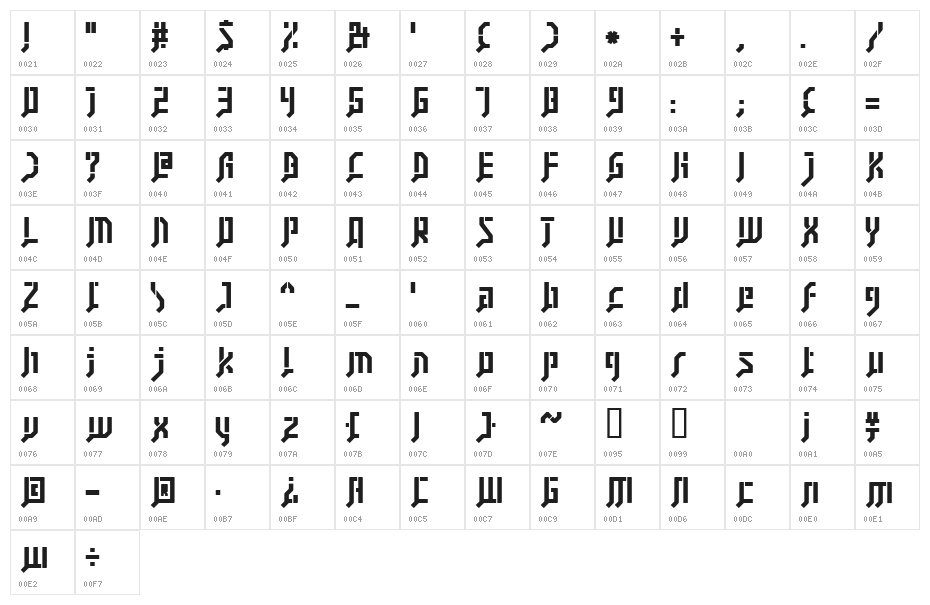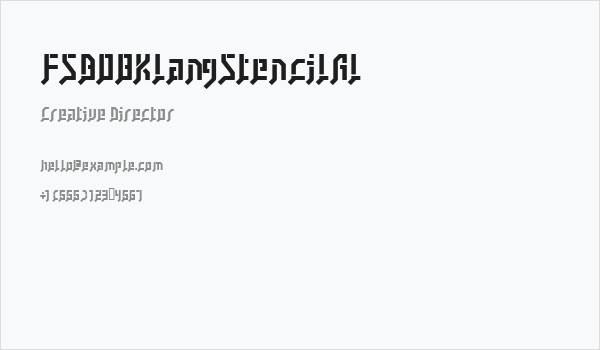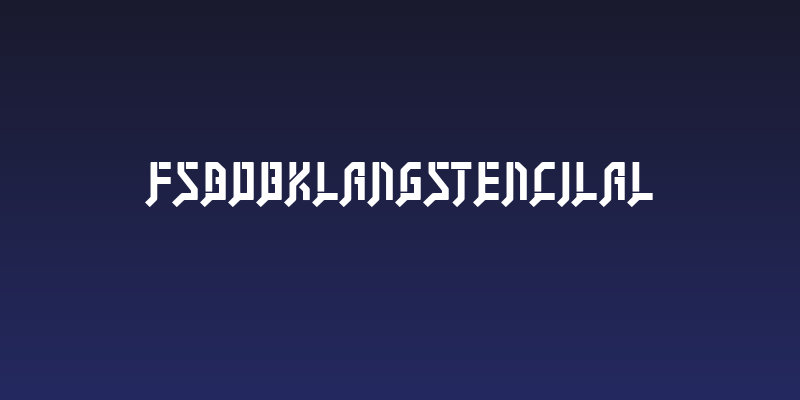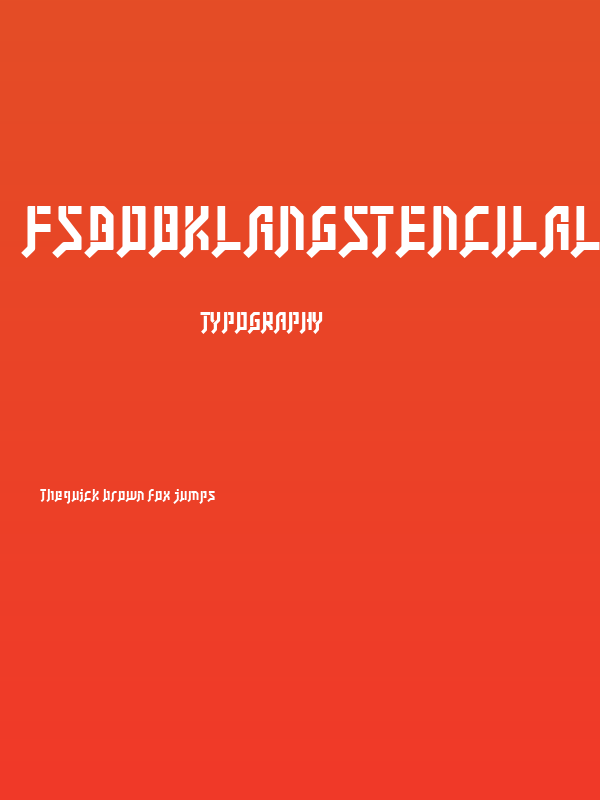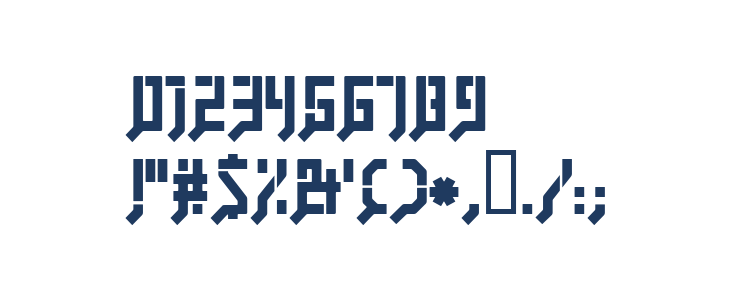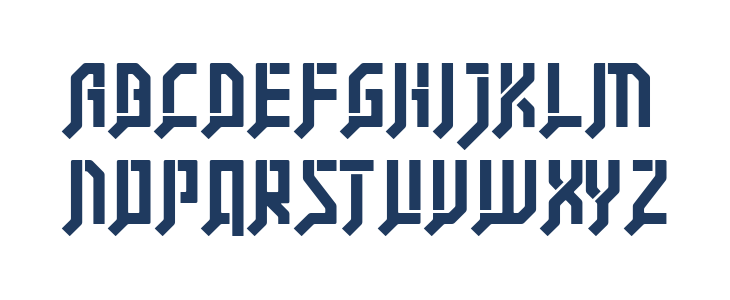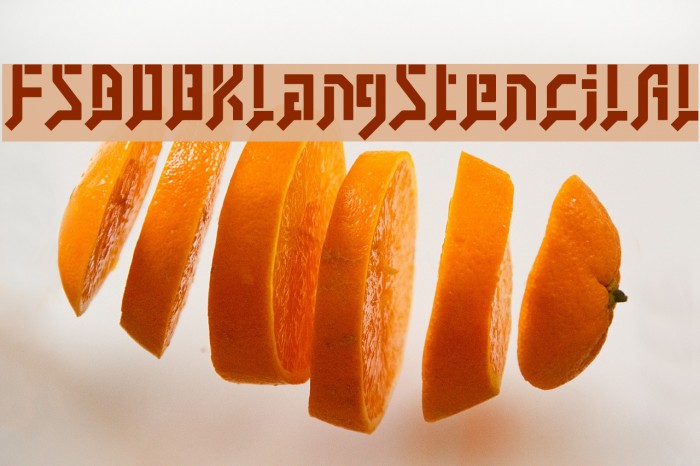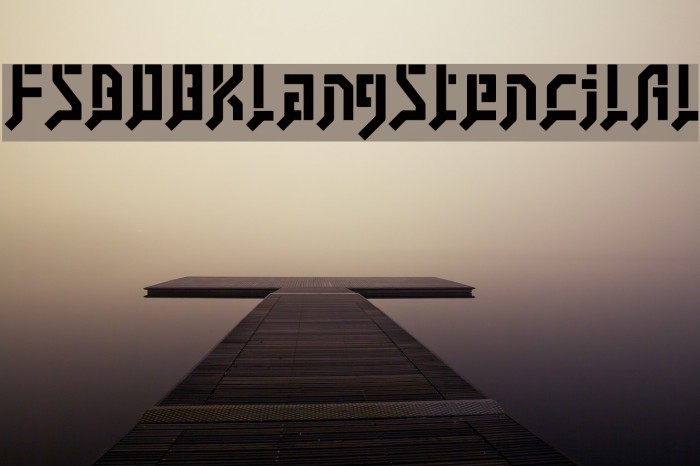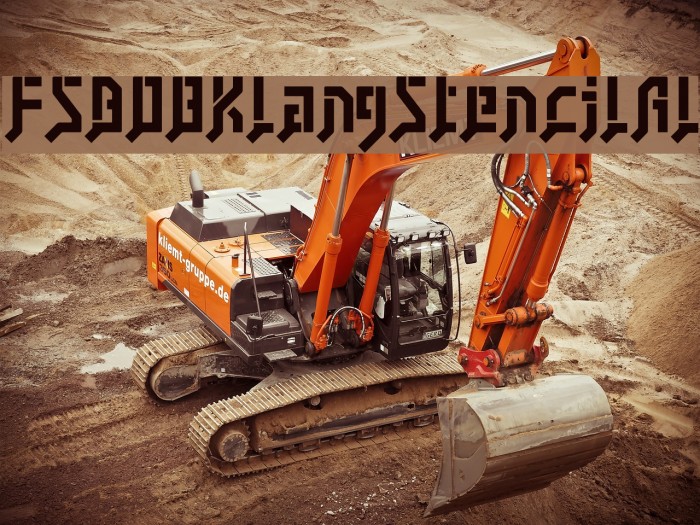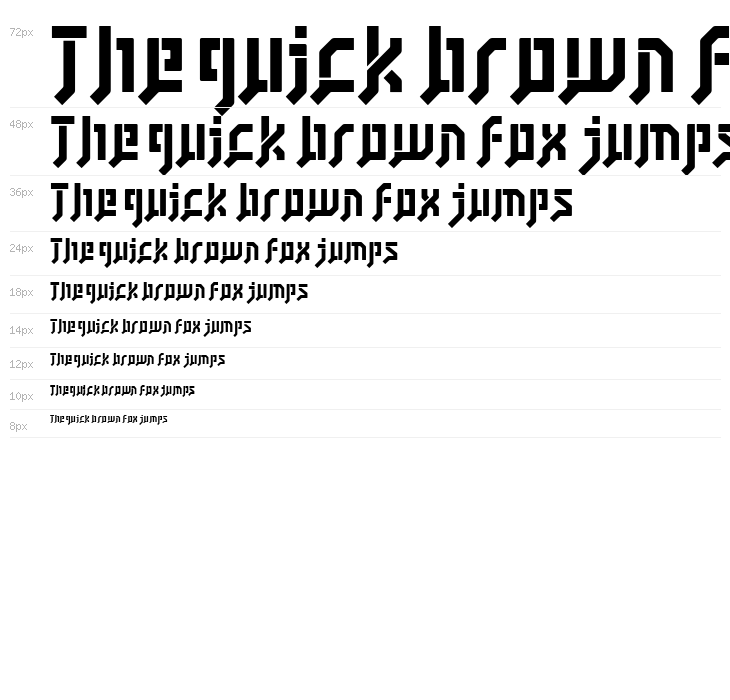
FSB08KlangStencilAl Font
FSB08KlangStencilAl Description
This font features a bold, geometric stencil design with sharp angles and a modern aesthetic. The characters are constructed with thick, uniform strokes that create a sense of strength and stability. The stencil gaps add a unique, industrial feel, making it stand out in any design. The uppercase and lowercase letters maintain a consistent style, while the numerals and special characters complement the overall look. This font is ideal for projects that require a bold statement and a contemporary edge.
| Proposed Projects | Ideal for branding, posters, signage, and any project requiring a strong, modern look. |